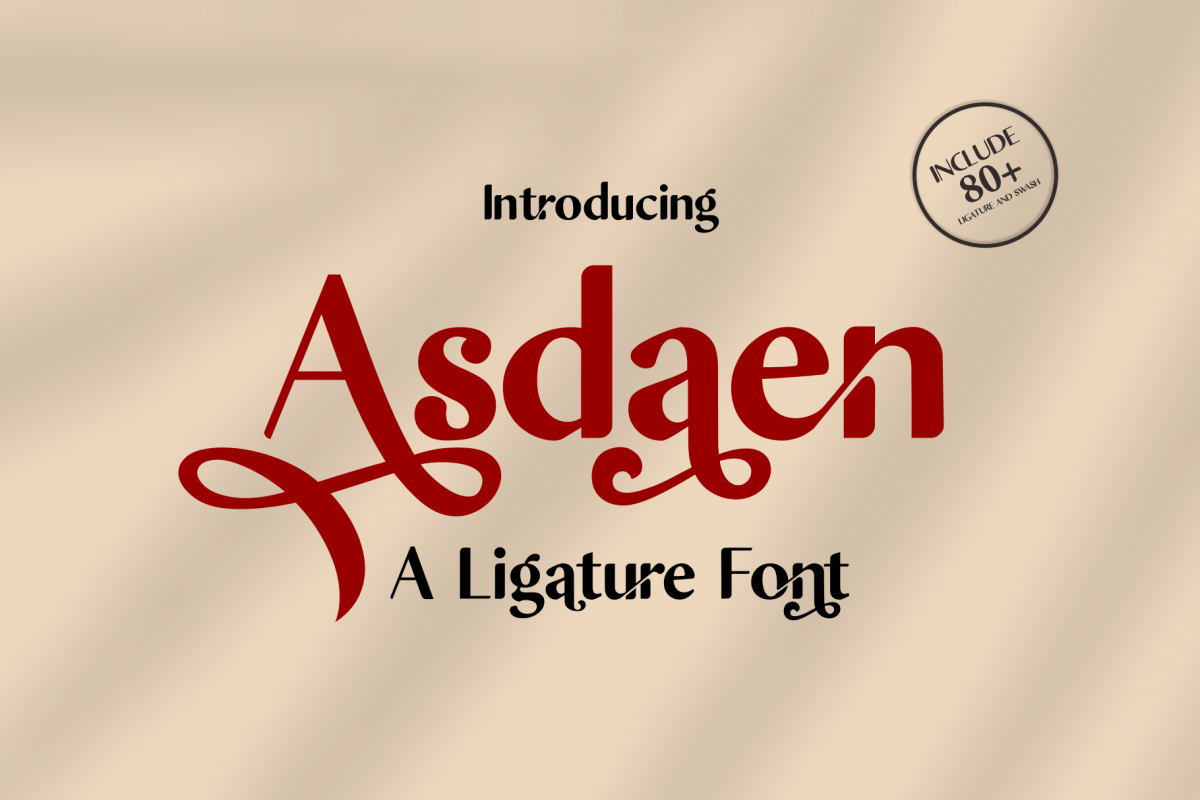
Asdaen Ligature
Asdaen Ligature is an elegant and unique font that uses ligature to link letters perfectly, to make it look beautiful,Asdaen Ligature has 80+ ligature, replace letters and punctuation that makes it very flexible, Ligature can be turned off if not needed, and with Asdaen Ligature becomes your attractive design style.
Asdaen Ligature also comes with a swash ligature,
Asdaen Ligature is also equipped with 420 Glyphs, and also features OpenType.
Asdaen Ligature is perfect for all kinds of designs such as posters, business cards, wedding invitations, greeting cards, books, magazines, banners, logos, blogs and more.